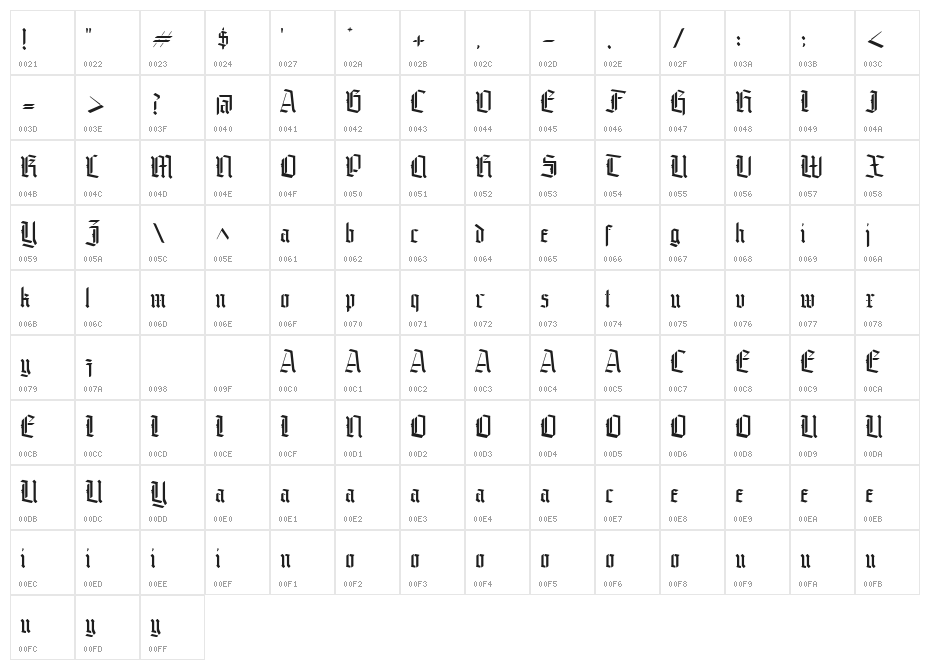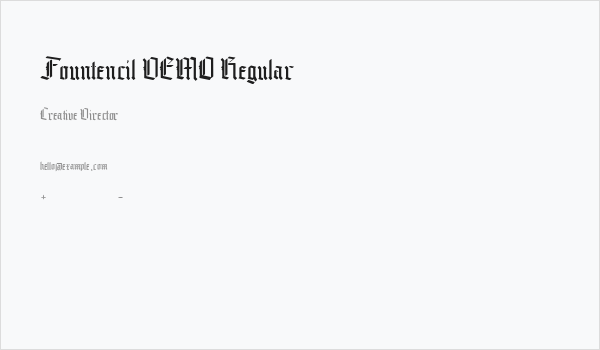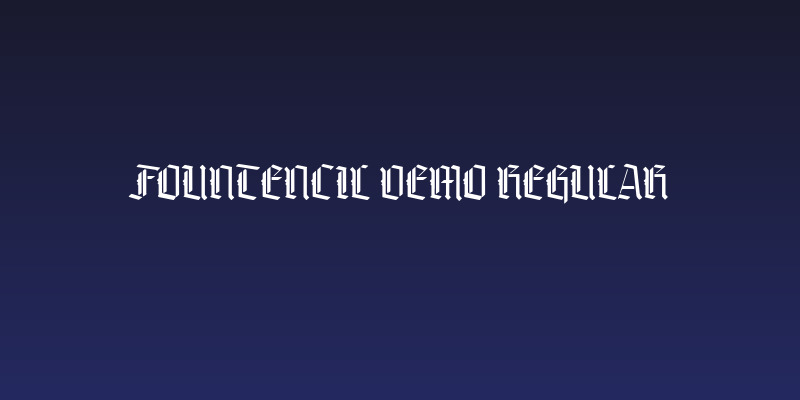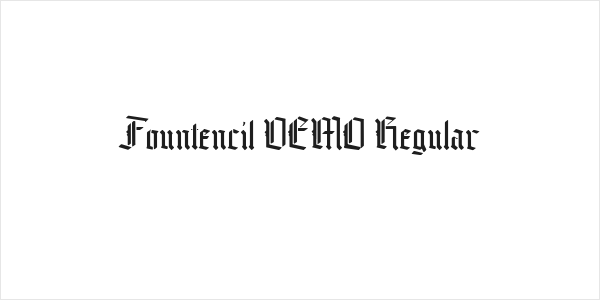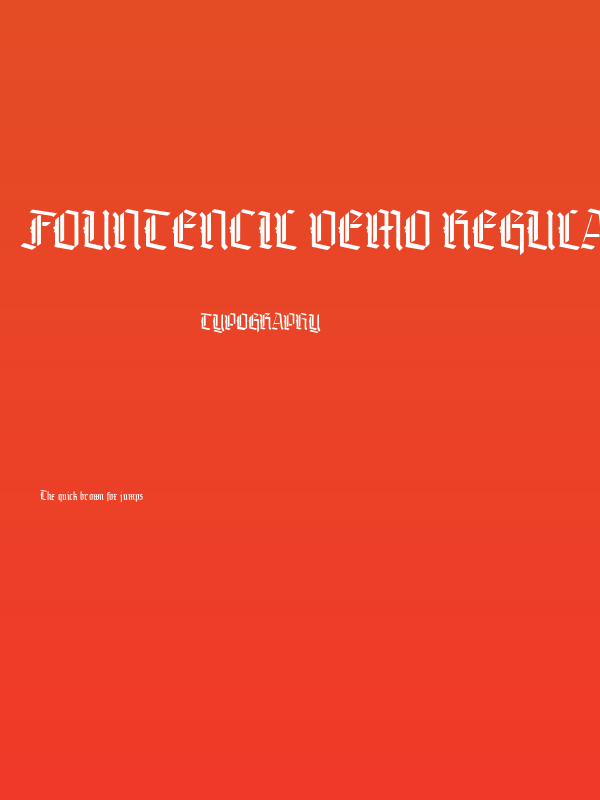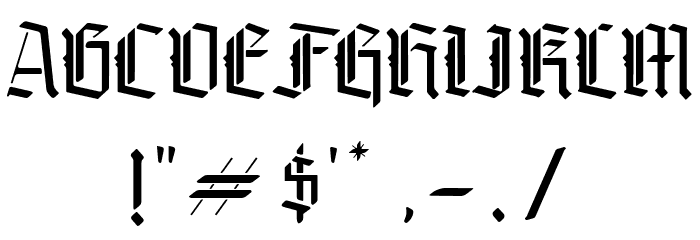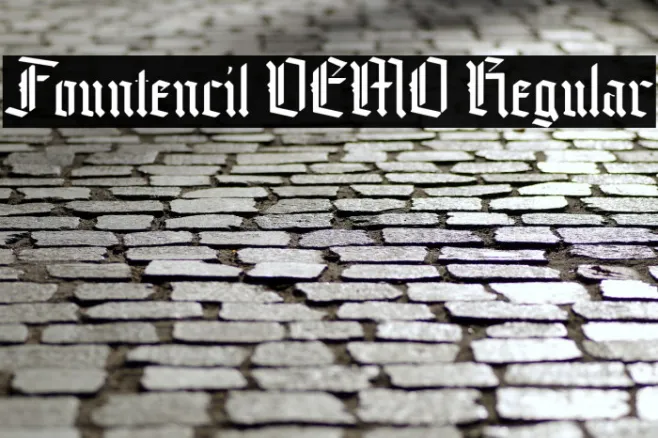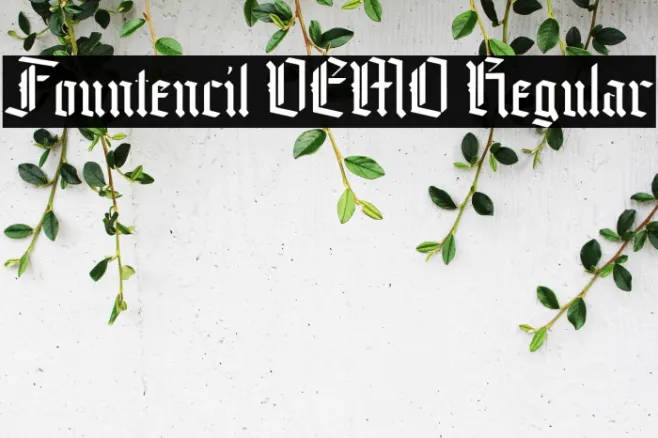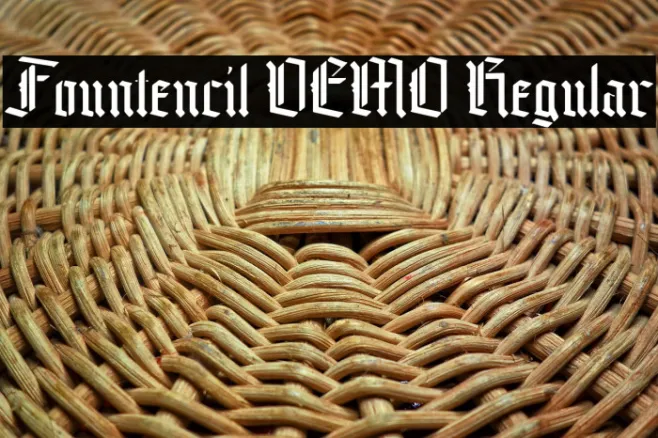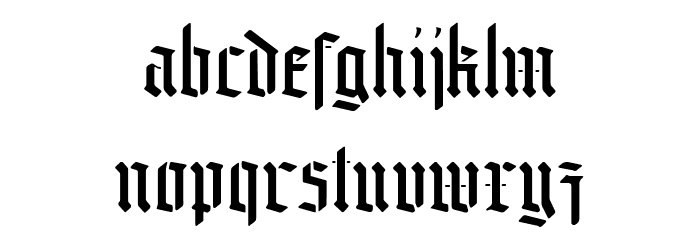
Fountencil DEMO Regular Font
Fountencil DEMO Regular Description
This font features a bold and striking blackletter style, characterized by its sharp, angular lines and intricate detailing. The uppercase letters are particularly ornate, with a strong emphasis on vertical strokes and pointed serifs that give it a medieval, gothic appearance. The lowercase letters maintain the same stylistic elements but are slightly more condensed, allowing for a cohesive flow in text. The numerals and special characters are designed to match the elaborate style, ensuring consistency throughout. This font's dramatic and historic aesthetic makes it ideal for projects that require a touch of elegance and tradition.
| Overall Style | Gothic, Historic |
| Proposed Projects | Ideal for use in branding, posters, book covers, and any design that requires a historic or gothic touch. |